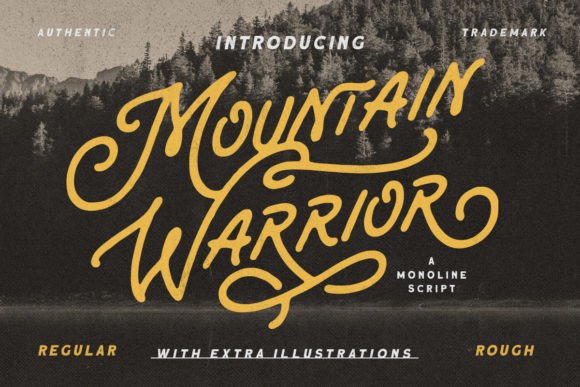
Prepare to be captivated by Mountain Warrior, a mesmerizing monoline script font that will transport you to a bygone era. Immerse yourself in the beauty of its retro charm, meticulously crafted to evoke a sense of nostalgia and elegance in every design you create.
Unleash the majestic power of Mountain Warrior, a script font that embodies the ruggedness of mountains and the spirit of warriors. It's the perfect font to add a touch of luxury and sophistication to your designs, whether you're creating logos, invitations, posters, or branding materials.
With Mountain Warrior, you'll have at your fingertips a font that effortlessly blends the old and the new. Its vintage-inspired style is infused with a modern flair, making it suitable for a wide range of design projects. Whether you're looking to create a classic or contemporary look, Mountain Warrior will deliver exceptional results.
Discover the boundless possibilities of Mountain Warrior. Its monoline strokes create a visually striking effect that will make your designs stand out from the crowd. The font's carefully crafted ligatures and alternates add an extra layer of elegance and sophistication, ensuring that your designs exude professionalism and creativity.
Mountain Warrior is a font that speaks to your soul, evoking emotions and memories. Its vintage charm will transport you to a simpler time, while its modern touches keep your designs relevant and current. It's the perfect font for creating designs that resonate with your audience, leaving a lasting impression that they won't soon forget.
Join the ranks of creative professionals who have embraced the power of Mountain Warrior. Experience the joy of creating designs that are both visually stunning and emotionally captivating. Let Mountain Warrior be your weapon of choice in the battle for design excellence.